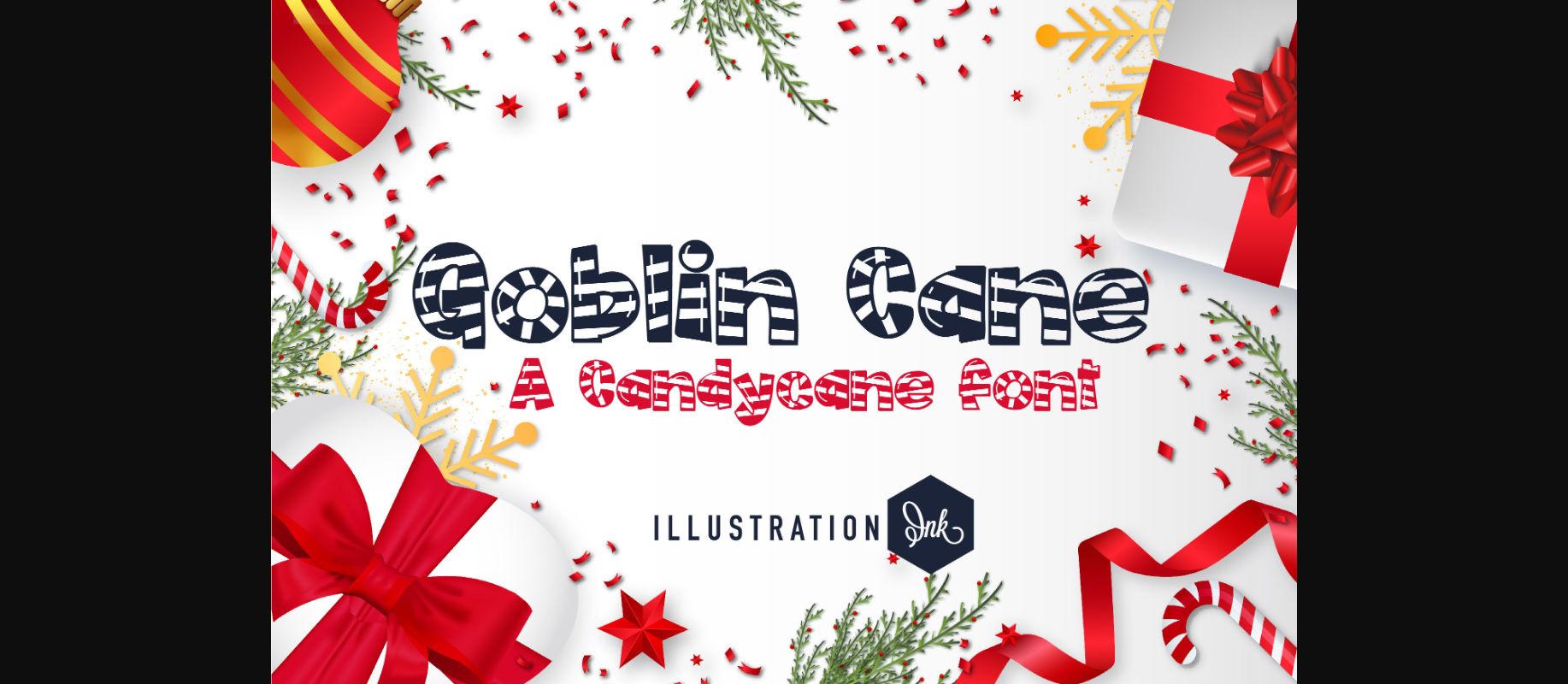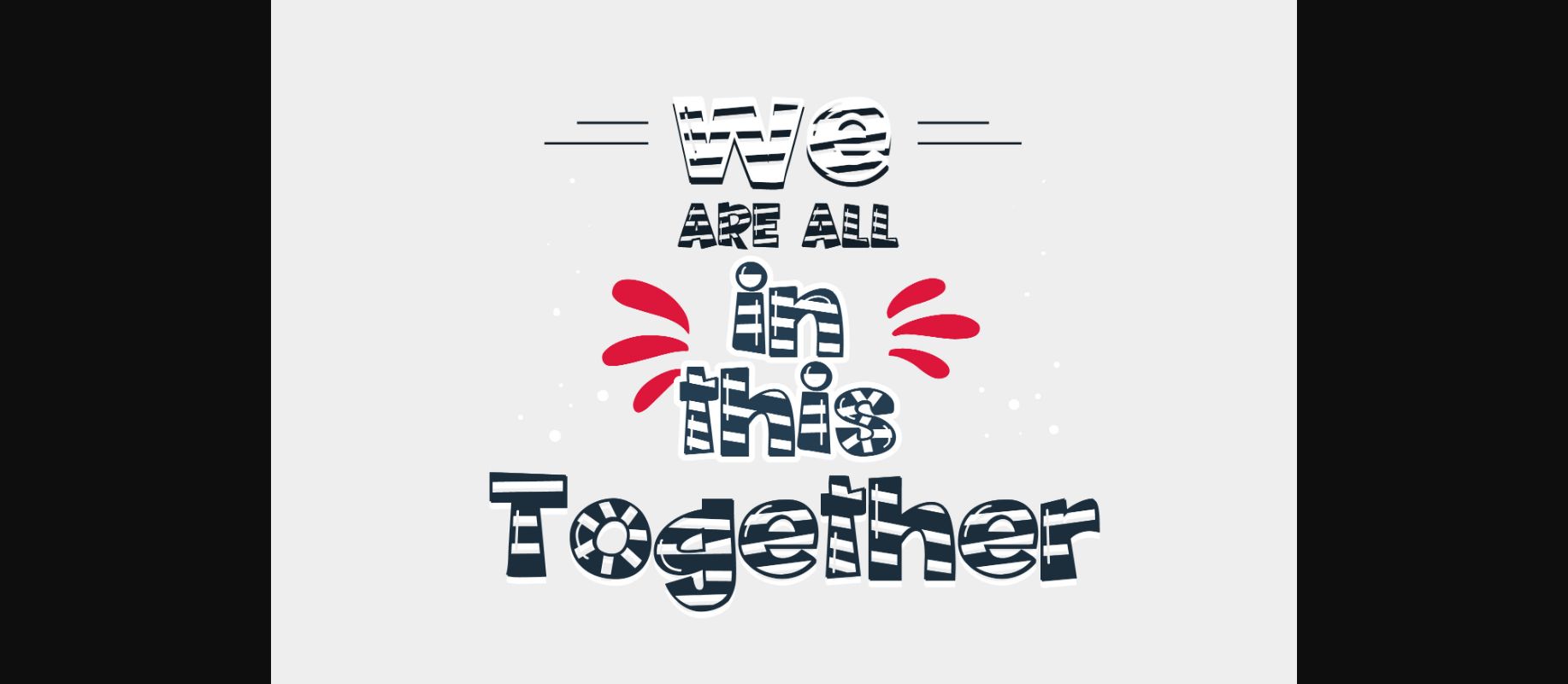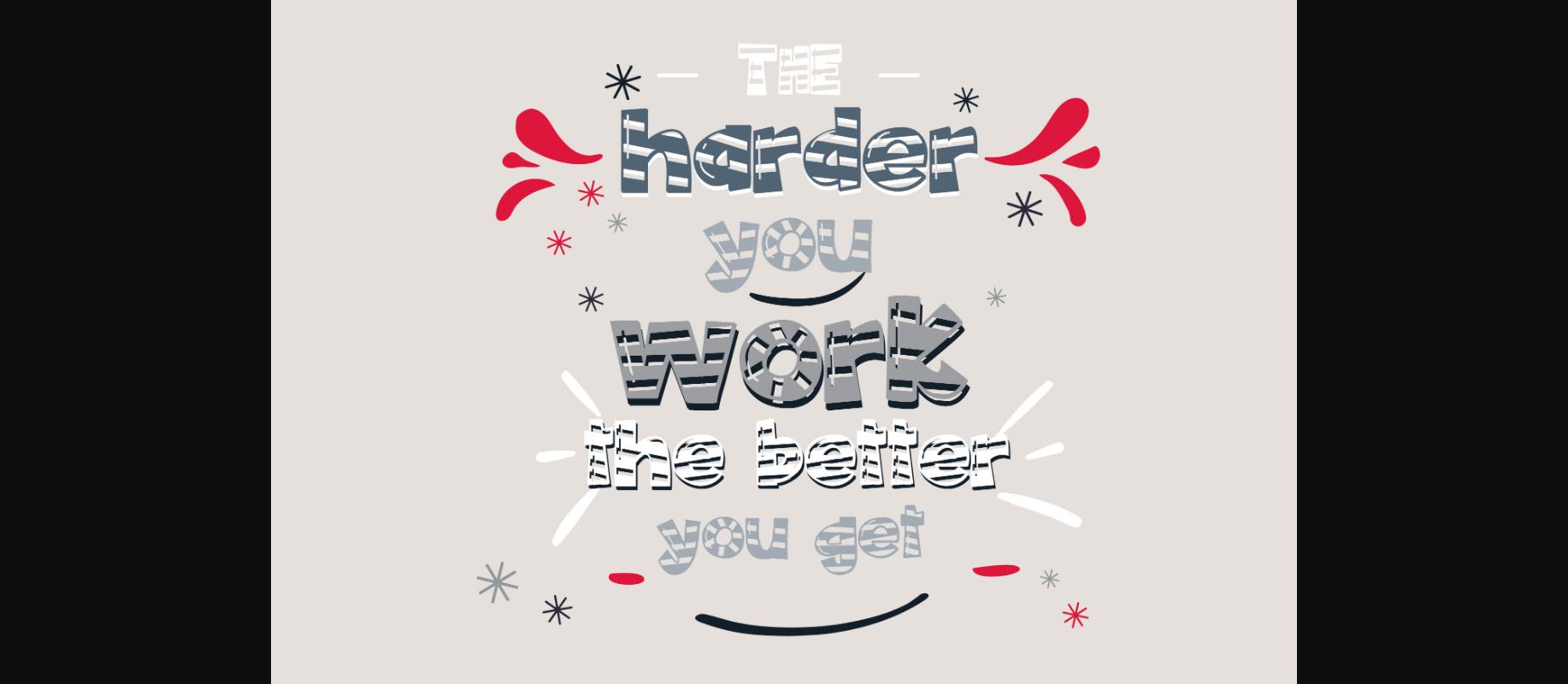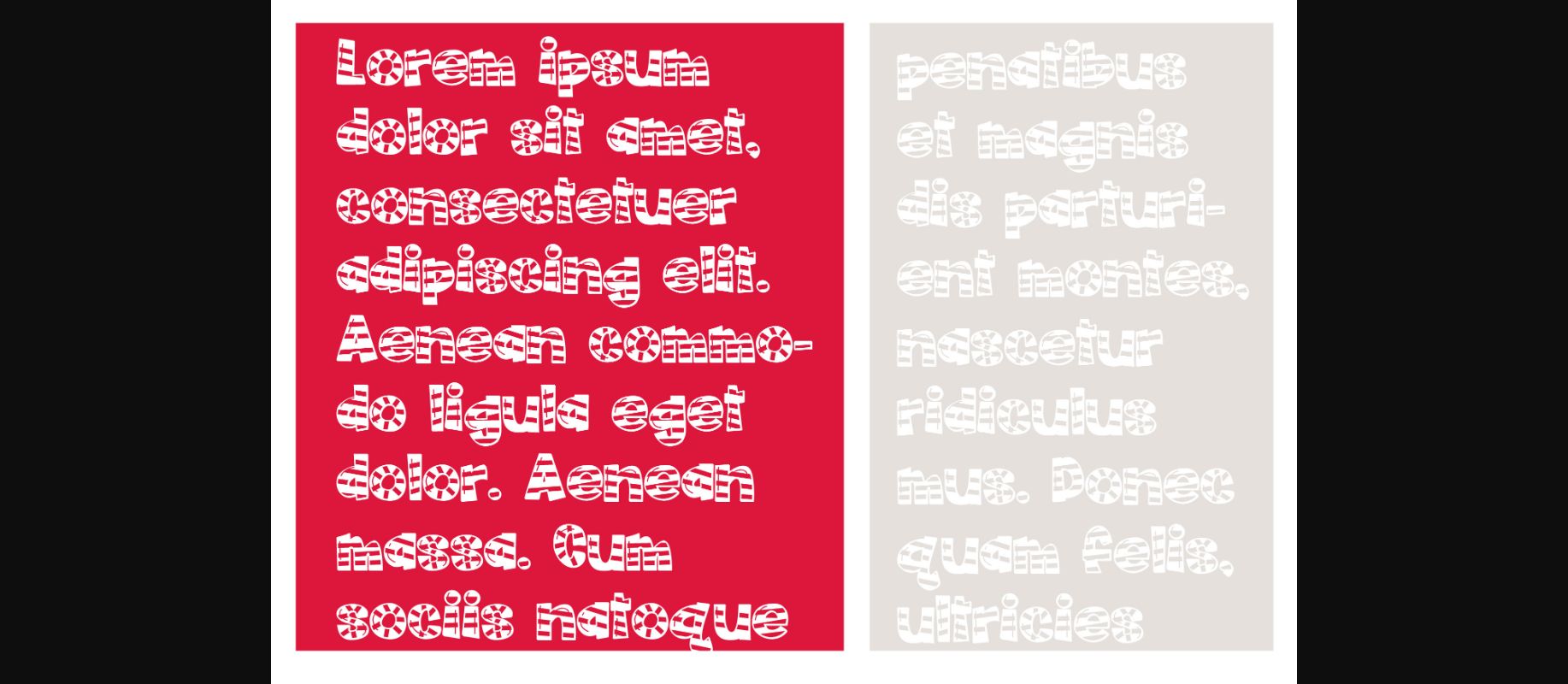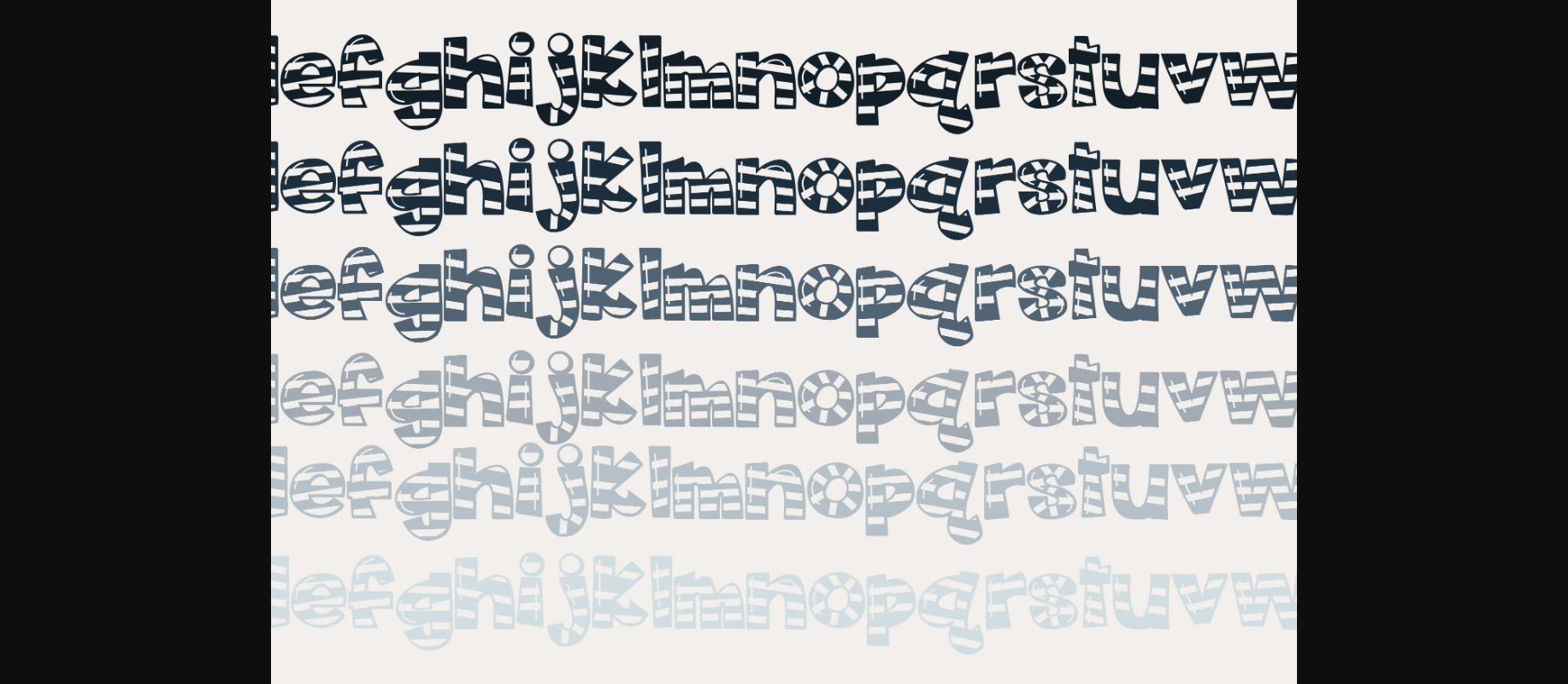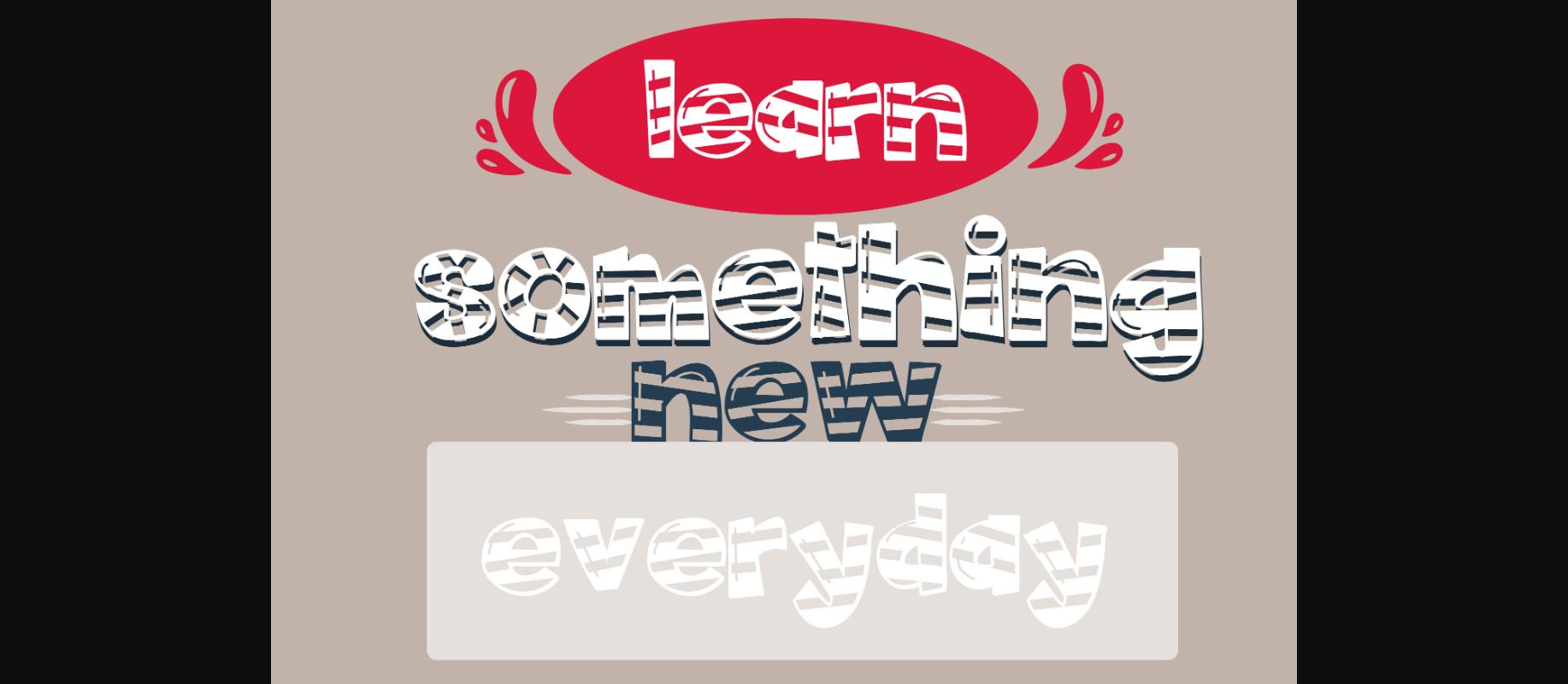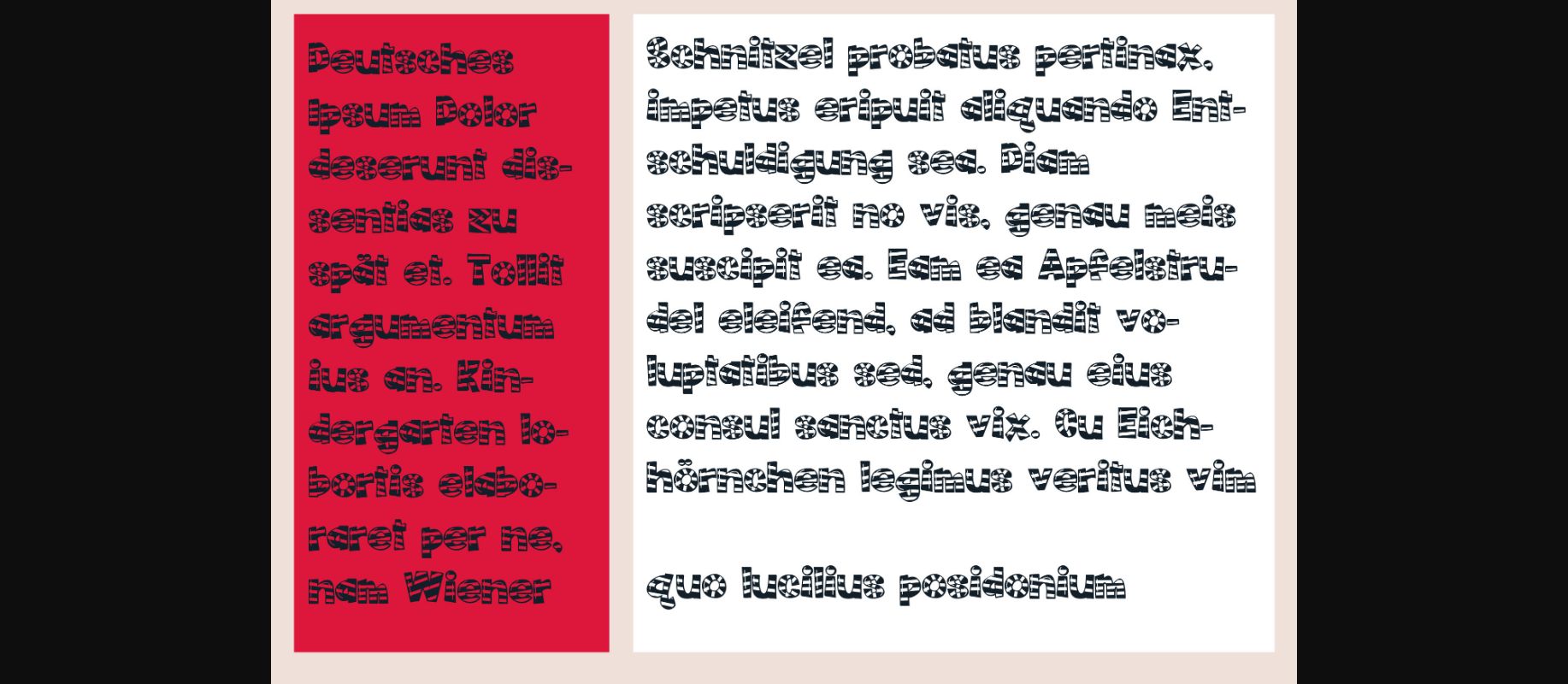
HomeDecorative FontsGoblin Cane Font Decorative Fonts Goblin Cane Font FacebookXPinterestWhatsApp 1 of 9 ... Goblin Cane Font Poster 2... Goblin Cane Font Poster 3... Goblin Cane Font Poster 4... Goblin Cane Font Poster 5... Goblin Cane Font Poster 6... Goblin Cane Font Poster 7... Goblin Cane Font Poster 8... Goblin Cane Font Poster 9... About Goblin Cane Font Goblin Cane is a lovely and cute decorative font featuring peppermint stripes. Add it confidently to your crafty ideas and enjoy the results! DOWNLOAD NOW People also explored Know What She Want Font Bartesolid Font Pamelia Font Abigaila Font Boekban Font Acelerato Rexless Font Bodhi Font Rampiro Font 344 0 TagsGoblin Cane Font Previous articleSarimin Monogram FontNext articleShion Chinese Monogram Font LEAVE A REPLY Cancel reply Comment: Please enter your comment! Name:* Please enter your name here Email:* You have entered an incorrect email address! Please enter your email address here Website: Save my name, email, and website in this browser for the next time I comment. Personal Use Free Maharany Personal Use Free Read more about this font Knox Personal Use Free Read more about this font Chandella Personal Use Free Read more about this font Trunk Shaped Personal Use Free Read more about this font BLOG Best Fonts for T-Shirt Design – Top 2025 Picks In 2025, t-shirt design has become more than just fashion—it's a form of self-expression. Whether you're... Where to Buy American Fonts Online in 2024 Exploring Font Trends How to Cut Any Font on Cricut: Convert a Font to SVG (Free)